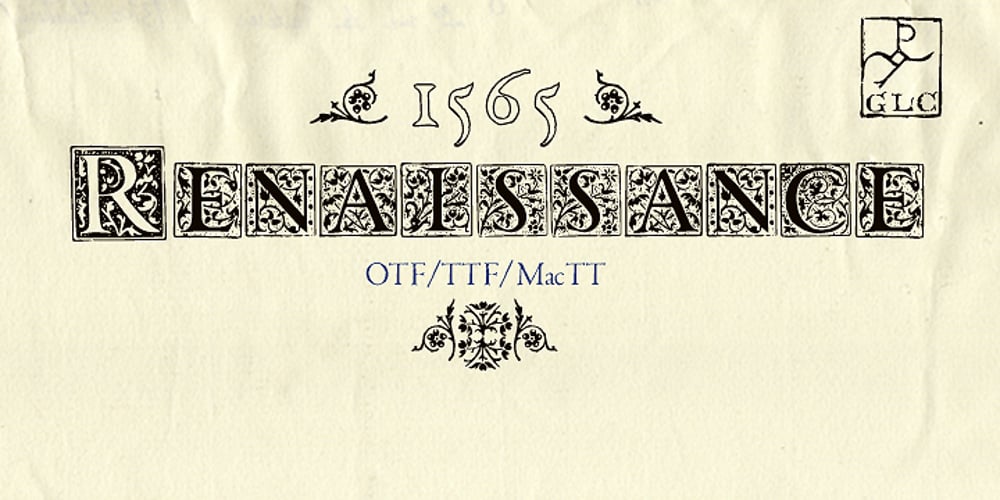
1565 Renaissance Font Family was designed by published by GLC. 1565 Renaissance contains 1 styles and family package options. This set of initial letters was inspired from French renaissance decorated letters. It is a typical pattern, one among dozen quite similar, but this one was in use in Paris, unchanged, for centuries, and was still in use in the beginning of 1900s. This explains the difference between I and J, U and V. These characters were engraved years after the original set. Our font was inspired from a late 1800s publication. It can be used as well with Humane fonts (like our 1543 Humane Janson or 1592 GLC Garamond) as with modern fonts like our 1820 Modern or 1906 French News.